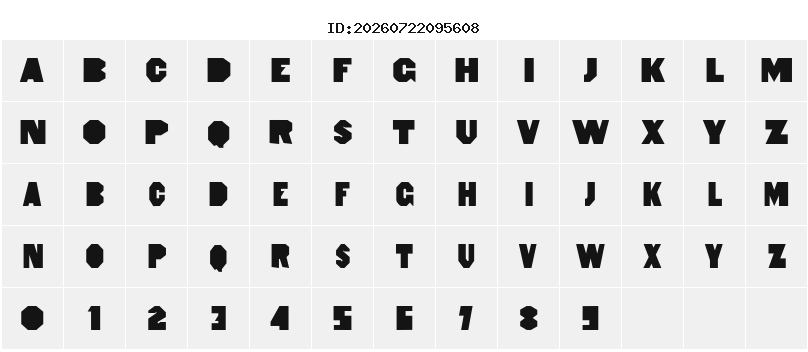
HeptagonFrench Limited Free Edition Preview
• Font Name: HeptagonFrench Limited Free Edition
• Full Font Name: HeptagonFrench Limited Free Edition
• Manufacturer: Paulo W, IntellectaDesign
About HeptagonFrench Limited Free Edition.ttf
HeptagonFrench Limited Free Edition.ttf is a modern, elegant sans-serif font designed for ultimate readability and visual harmony. Perfect for branding, headlines, web design, and print materials.